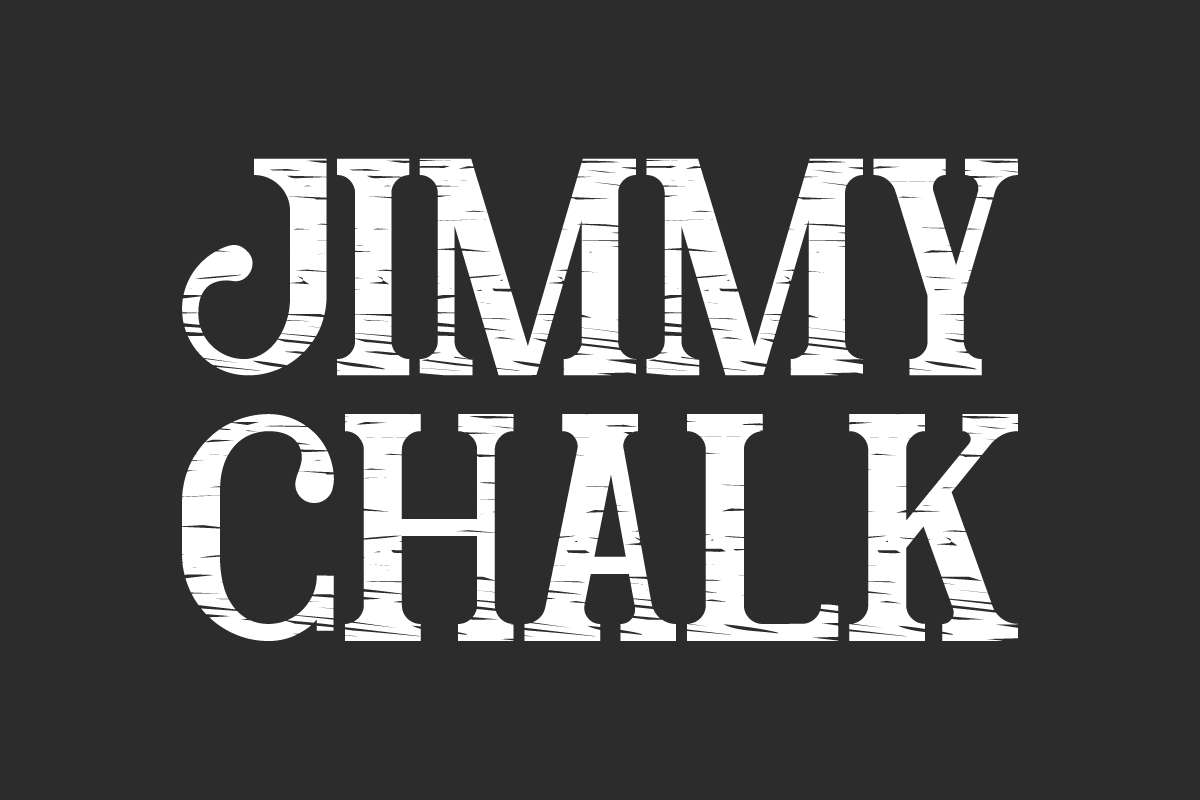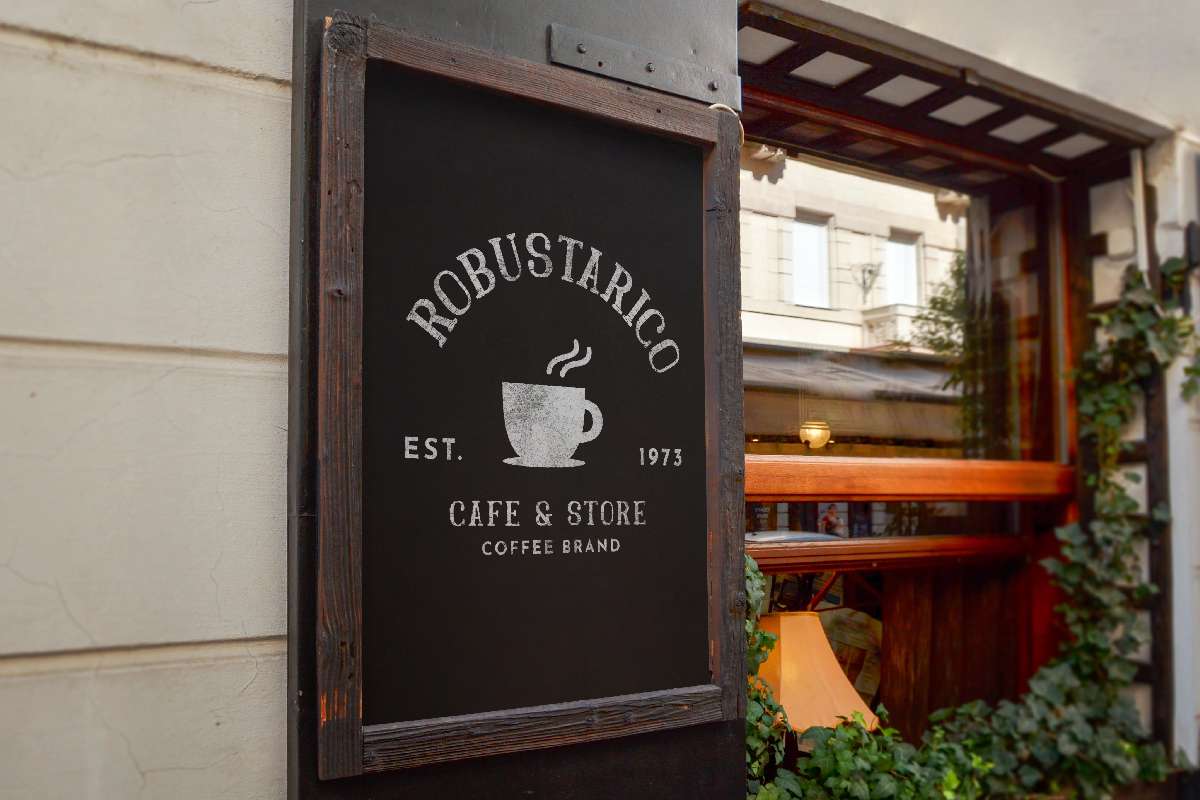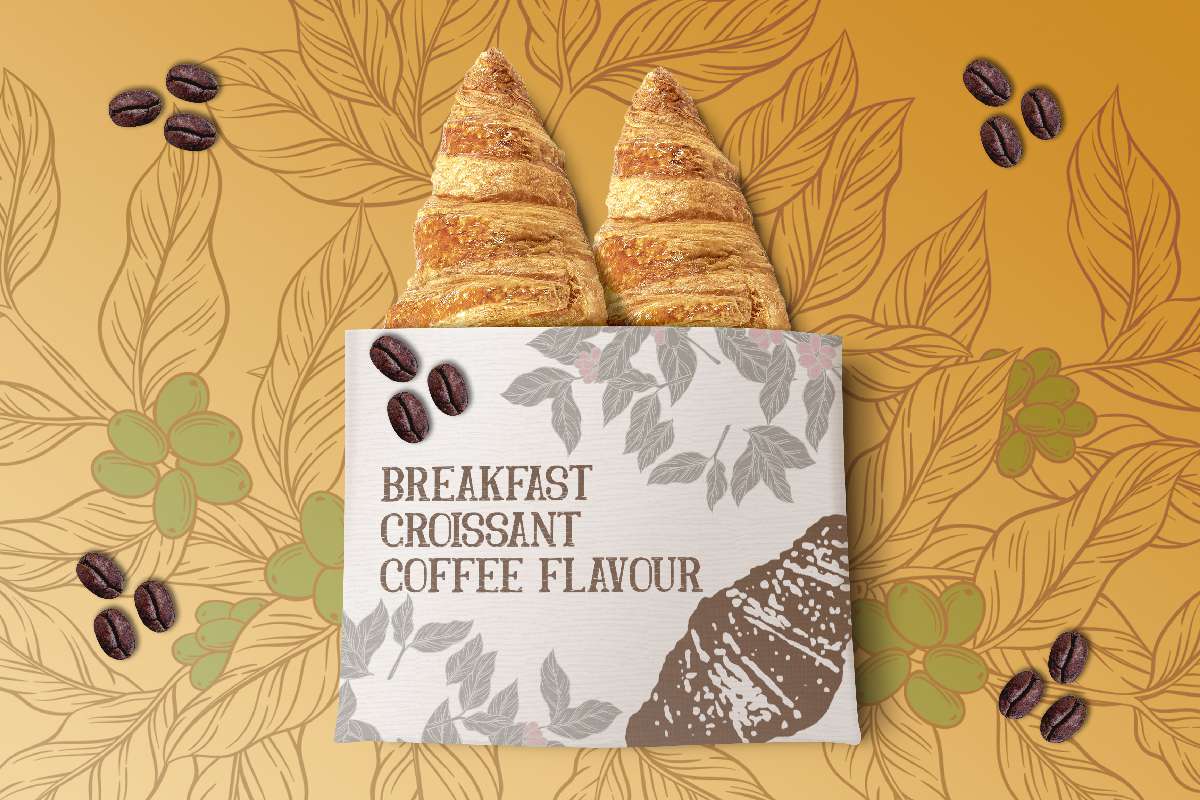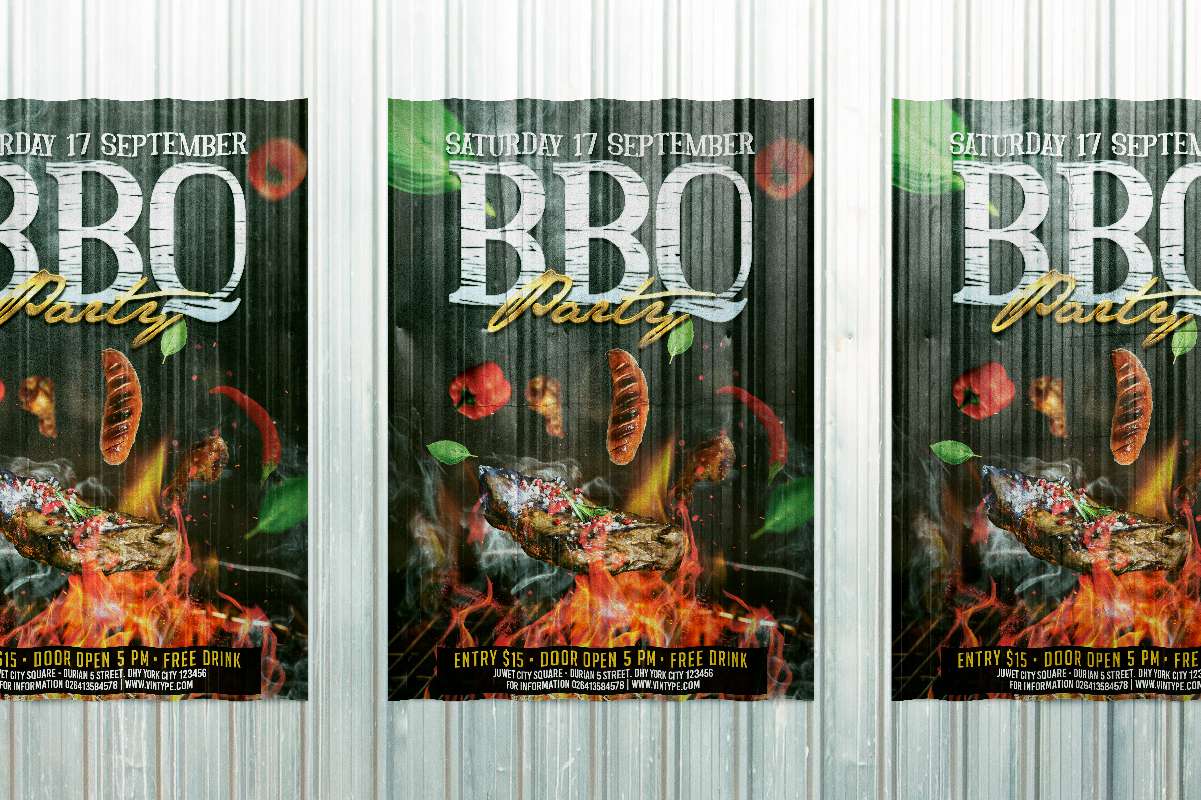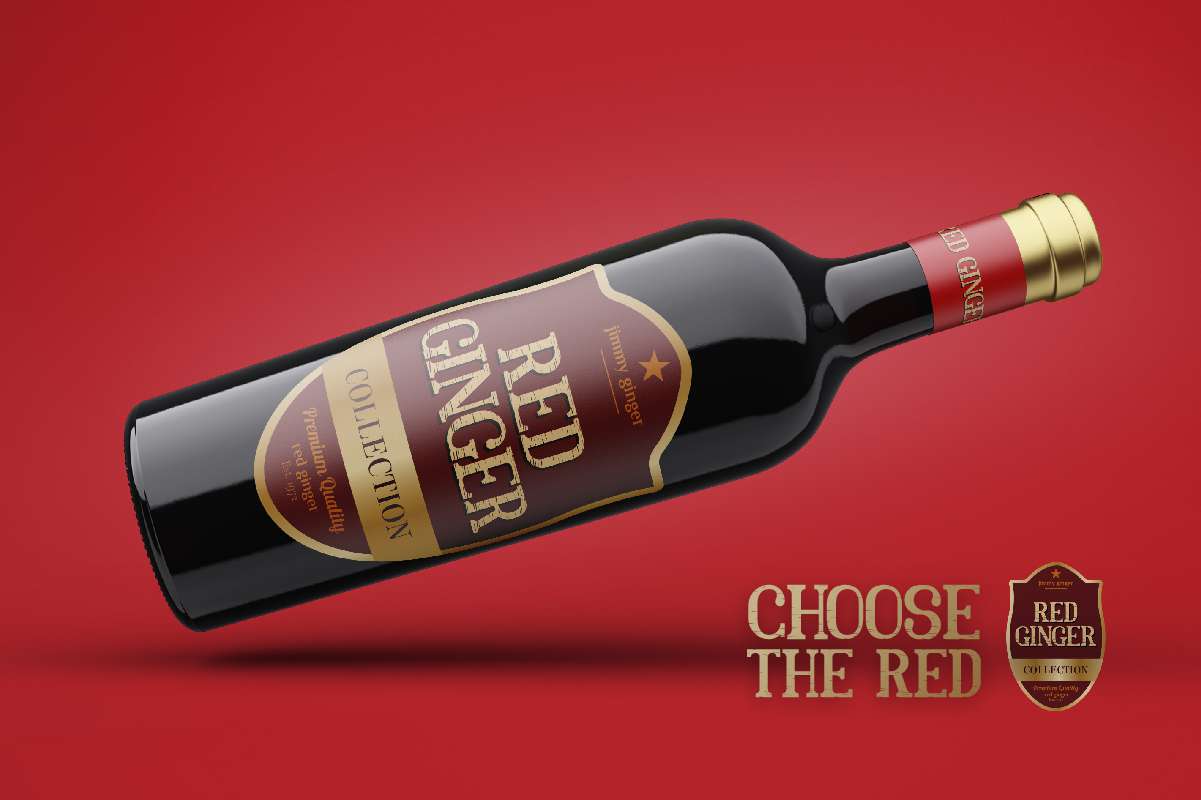
Jimmy Chalk Font . download jimmy chalk demo font · free for personal use · please read this carefully : Use it for game, logos, promotion, products, title, and more! jimmy chalk font download is available free from fontget. jimmy chalk font is a display serif font. The jimmy chalk font has been downloaded 3,587 times. 8,806 downloads (3 yesterday) free for personal use. This font has a lined or messy style chalk effect that looks awesome in just about every context. This font has a lined or messy style chalk effect that looks awesome in just about every context. download and install the jimmy chalk font by vintype. Jimmy chalk font is a fancy,western type font that can be used on any. jimmy chalk font download is available free from 8font.com. jimmy chalk is a display serif font. Jimmy chalk is a free font for personal use created by raisproject. By installing or using this font, you are agree to the.
download jimmy chalk demo font · free for personal use · please read this carefully : This font has a lined or messy style chalk effect that looks awesome in just about every context. download and install the jimmy chalk font by vintype. Use it for game, logos, promotion, products, title, and more! The jimmy chalk font has been downloaded 3,587 times. By installing or using this font, you are agree to the. jimmy chalk font is a display serif font. jimmy chalk is a display serif font. 8,806 downloads (3 yesterday) free for personal use. Jimmy chalk is a free font for personal use created by raisproject.
Jimmy Chalk Font This font has a lined or messy style chalk effect that looks awesome in just about every context. jimmy chalk font download is available free from fontget. download and install the jimmy chalk font by vintype. jimmy chalk font is a display serif font. Jimmy chalk font is a fancy,western type font that can be used on any. By installing or using this font, you are agree to the. The jimmy chalk font has been downloaded 3,587 times. download jimmy chalk demo font · free for personal use · please read this carefully : Jimmy chalk is a free font for personal use created by raisproject. This font has a lined or messy style chalk effect that looks awesome in just about every context. jimmy chalk is a display serif font. Use it for game, logos, promotion, products, title, and more! jimmy chalk font download is available free from 8font.com. This font has a lined or messy style chalk effect that looks awesome in just about every context. 8,806 downloads (3 yesterday) free for personal use.
Jimmy Chalk Font Download Free Font Jimmy Chalk Font jimmy chalk font is a display serif font. This font has a lined or messy style chalk effect that looks awesome in just about every context. By installing or using this font, you are agree to the. This font has a lined or messy style chalk effect that looks awesome in just about every context. Use it for game,. Jimmy Chalk Font.
Jimmy Chalk Display Font by VinType Studio Jimmy Chalk Font jimmy chalk font is a display serif font. This font has a lined or messy style chalk effect that looks awesome in just about every context. Jimmy chalk font is a fancy,western type font that can be used on any. download and install the jimmy chalk font by vintype. 8,806 downloads (3 yesterday) free for personal use.. Jimmy Chalk Font.
Jimmy Chalk Display Font by VinType Studio Jimmy Chalk Font By installing or using this font, you are agree to the. jimmy chalk font download is available free from fontget. This font has a lined or messy style chalk effect that looks awesome in just about every context. jimmy chalk font is a display serif font. Use it for game, logos, promotion, products, title, and more! Jimmy chalk. Jimmy Chalk Font.
Jimmy Chalk Display Font by VinType Studio Jimmy Chalk Font download and install the jimmy chalk font by vintype. Jimmy chalk is a free font for personal use created by raisproject. The jimmy chalk font has been downloaded 3,587 times. download jimmy chalk demo font · free for personal use · please read this carefully : This font has a lined or messy style chalk effect that looks. Jimmy Chalk Font.
10 Free Chalk Fonts for Handwritten Style Graphic Pie Jimmy Chalk Font This font has a lined or messy style chalk effect that looks awesome in just about every context. Jimmy chalk is a free font for personal use created by raisproject. The jimmy chalk font has been downloaded 3,587 times. Use it for game, logos, promotion, products, title, and more! jimmy chalk font is a display serif font. jimmy. Jimmy Chalk Font.
Jimmy Chalk Display Font by VinType Studio Jimmy Chalk Font This font has a lined or messy style chalk effect that looks awesome in just about every context. Jimmy chalk is a free font for personal use created by raisproject. By installing or using this font, you are agree to the. jimmy chalk is a display serif font. Use it for game, logos, promotion, products, title, and more! . Jimmy Chalk Font.
Jimmy Chalk Display Font by VinType Studio Jimmy Chalk Font download jimmy chalk demo font · free for personal use · please read this carefully : jimmy chalk font download is available free from fontget. This font has a lined or messy style chalk effect that looks awesome in just about every context. This font has a lined or messy style chalk effect that looks awesome in just. Jimmy Chalk Font.
Chalkboard Font Collection Fun and Friendly Great for your classroom Jimmy Chalk Font By installing or using this font, you are agree to the. download jimmy chalk demo font · free for personal use · please read this carefully : This font has a lined or messy style chalk effect that looks awesome in just about every context. 8,806 downloads (3 yesterday) free for personal use. Use it for game, logos,. Jimmy Chalk Font.
35 Free Chalk Fonts Best Chalk font In 2024 Jimmy Chalk Font jimmy chalk font is a display serif font. This font has a lined or messy style chalk effect that looks awesome in just about every context. Jimmy chalk font is a fancy,western type font that can be used on any. Jimmy chalk is a free font for personal use created by raisproject. By installing or using this font, you. Jimmy Chalk Font.
Jimmy Chalk Display Font by VinType Studio Jimmy Chalk Font This font has a lined or messy style chalk effect that looks awesome in just about every context. jimmy chalk font download is available free from 8font.com. By installing or using this font, you are agree to the. 8,806 downloads (3 yesterday) free for personal use. Use it for game, logos, promotion, products, title, and more! download. Jimmy Chalk Font.